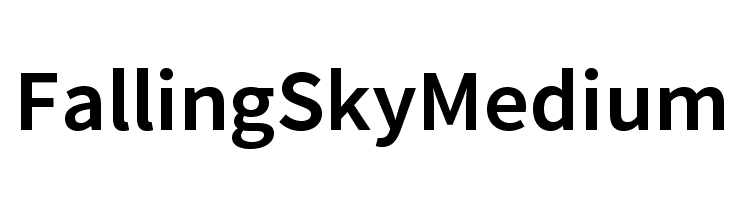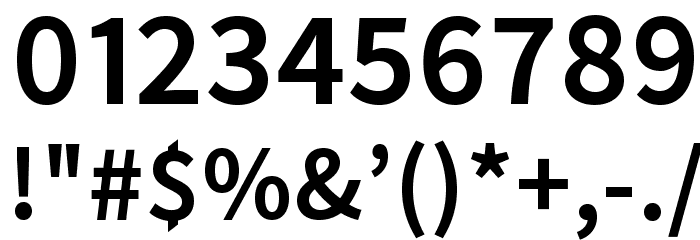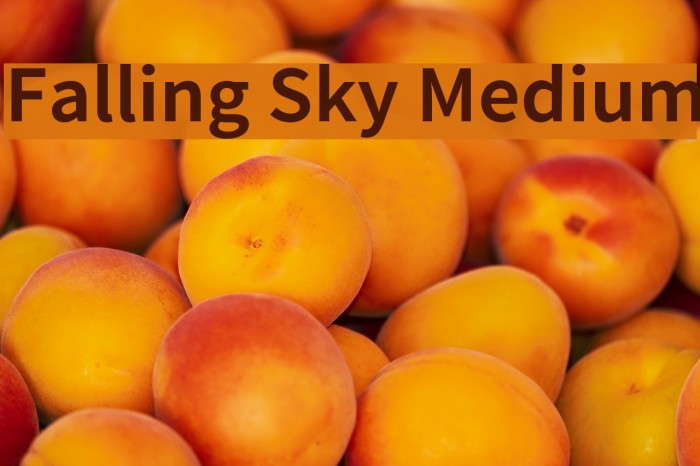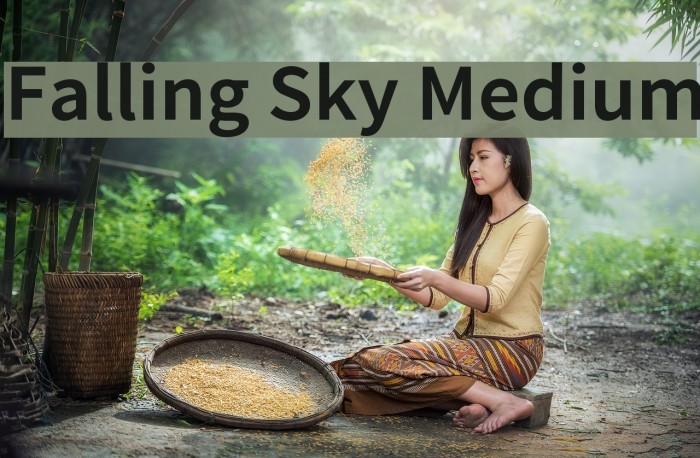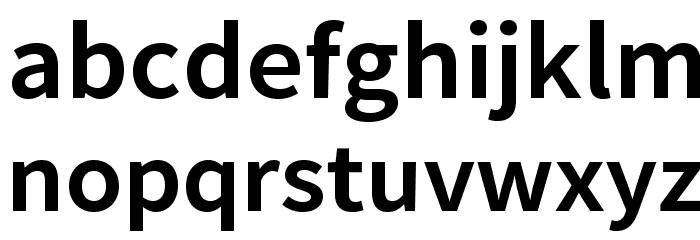
Falling Sky Medium Font
Falling Sky Medium Description
This typeface features a clean and modern design with a sans-serif style. The characters are well-proportioned, offering a balanced and harmonious appearance. The uppercase letters are bold and assertive, while the lowercase letters maintain a consistent weight, providing a uniform look. The numerals are clear and easily distinguishable, making them suitable for various applications. Special characters are included, enhancing the font's versatility. The overall design is straightforward, making it ideal for both digital and print media.
A clean, modern sans-serif typeface with balanced proportions and clear readability from Uncategorized fonts.
- Proposed Projects: Ideal for branding, web design, advertising, and editorial projects due to its clarity and modern appeal.